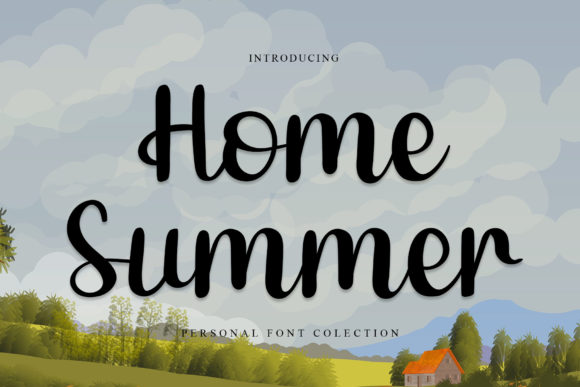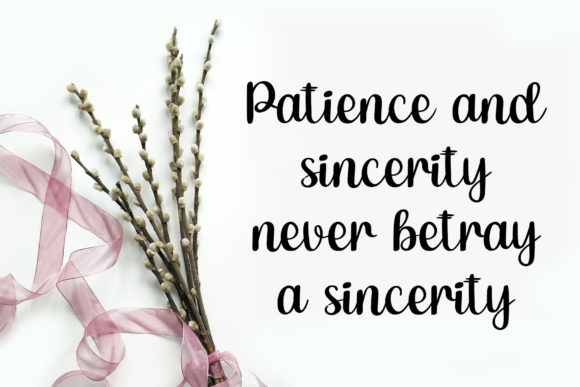
About Home Summer Font
Home Summer is a flowing and round lettered handwritten font, described by an elegant touch, perfect for your favorite projects. Fall in love with its incredibly distinct and timeless style and use it to create spectacular designs!